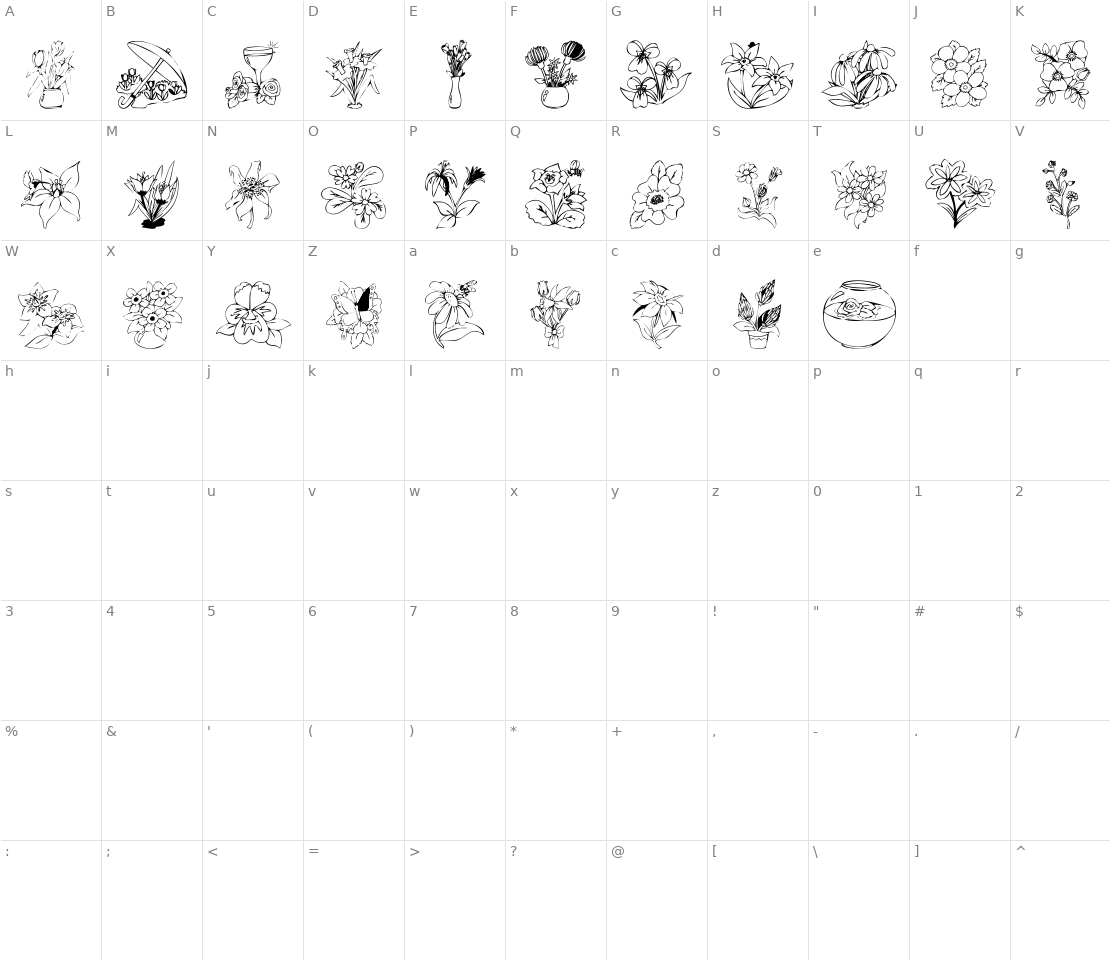
KR Bloom Bonanza
by Kat's Fun Fonts
KR Bloom Bonanza is a floral dingbat set from Kat's Fun Fonts, offering a collection of line-art flower and botanical illustrations mapped to the keyboard. The drawings have a clean, outline-only quality that feels hand-sketched and garden-inspired, useful for borders, dividers, invitations, and anywhere you need a quick decorative botanical element without reaching for a full illustration.